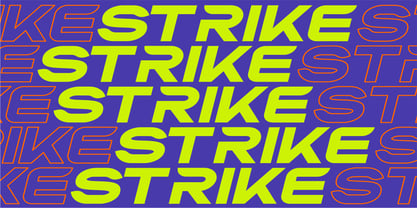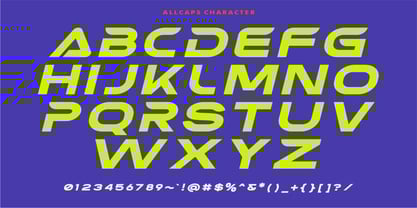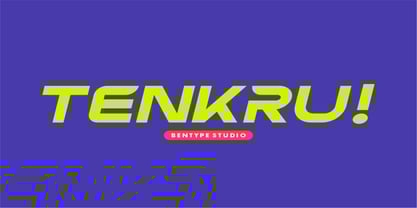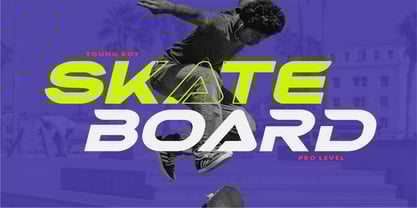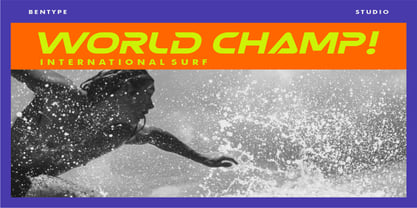
Geardive
by Bentype
The Geardive Font Family was designed by Muhammad Farkhan and published by Bentype. Geardive contains 1 styles.
Geardive is a futuristic sporty display font designed to make an sporty impact. With its aggressive forward slant and sharp, confident letterforms, Spot Light injects a shot of adrenaline into any design. It's built for speed, strength, and modern aesthetics. Font Includes: Upper Case & Lower Case Numbers Punctuation Contact us if you need help. I hope you enjoy and thank you.
Designers: Muhammad Farkhan
Publisher: Bentype
Foundry: Bentype
Design Owner: Bentype